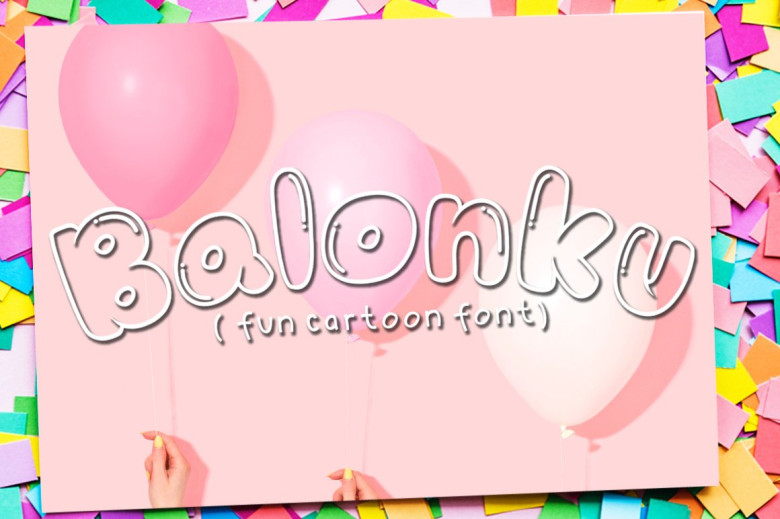
Balonku Cartoon Font
This is a new fun cartoon font, this is a bold friendly font which was created to bring a playful and little bit infantile feeling in any design. Introducing Balonku Font. The Balonku is a decorative font in the shape of balloons and soap bubbles. It can be used for kids themed designs, birthday parties, and every other design which needs a playful touch!